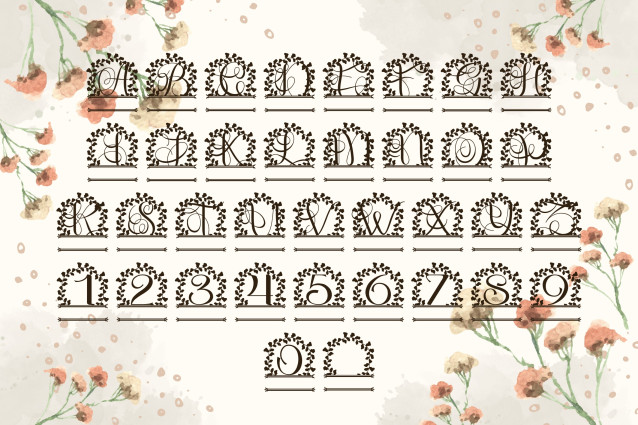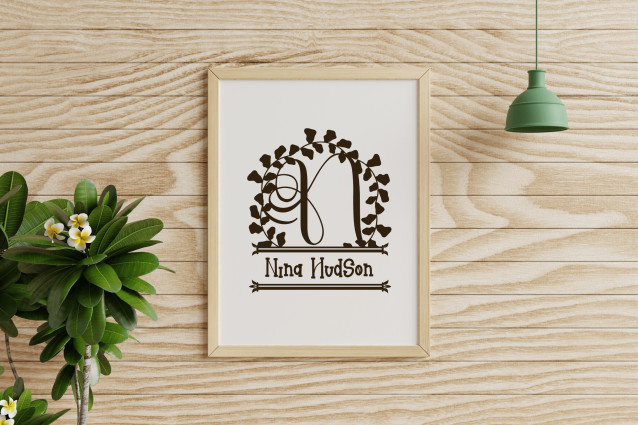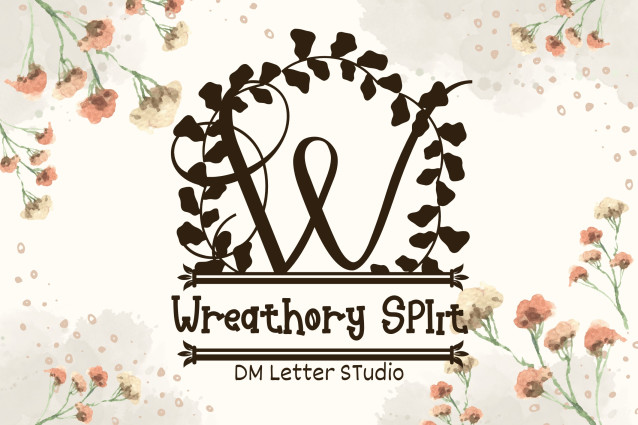
Wreathory Split Font
Wreathory Split Font is a charming serif split monogram font adorned with delicate wreath illustrations. Each uppercase letter is split horizontally, creating a space for custom names, dates, or initials—ideal for weddings, personalized gifts, or seasonal crafts. The included wreath elements bring a handcrafted botanical elegance that pairs beautifully with rustic or romantic design themes.